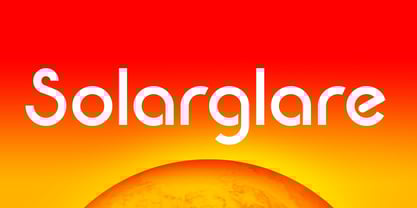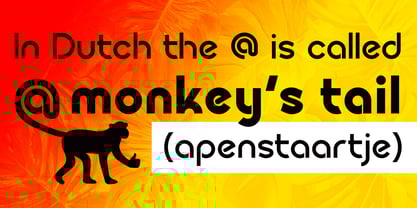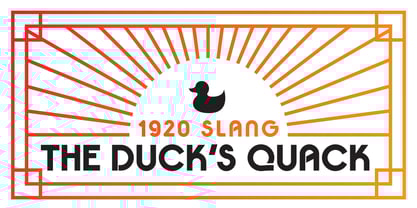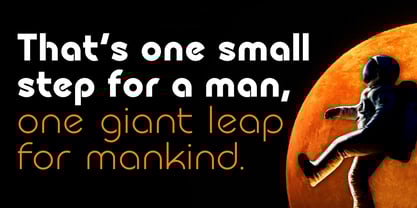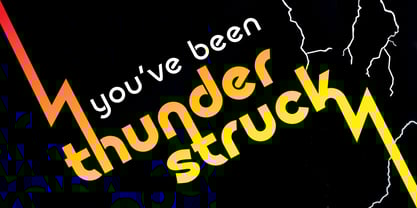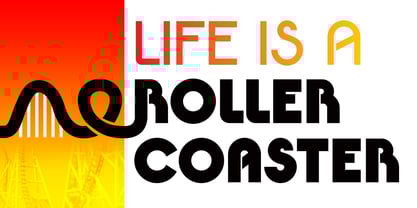
Solarglare
by Stephan Kamperman
Solarglare is the improved version of my previous font Robeaugo. Some characters have changed for readability and without the rounded endings at the glyphs (Robeaugo) it's possible to create a greater variety in weight. With the improvement Solarglare has a greater variety of use. The sun was an inspiration for these slides and the naming of this font.
About Stephan Kamperman
Based in Groenlo, the Netherlands, Stephan Kamperman began his career as a graphic designer. While making logos he always had special attention for typography. It was here that he started to get the first ideas for creating fonts. As he started designing letters for specific logos, he started to wonder how other letters in the same style would look like and decided to make his first font Robeaugo. Nowadays Stephan works in mental disability care. Creativity still flows and Stephan will keep creating besides his job. This can also be in the shape of a font.